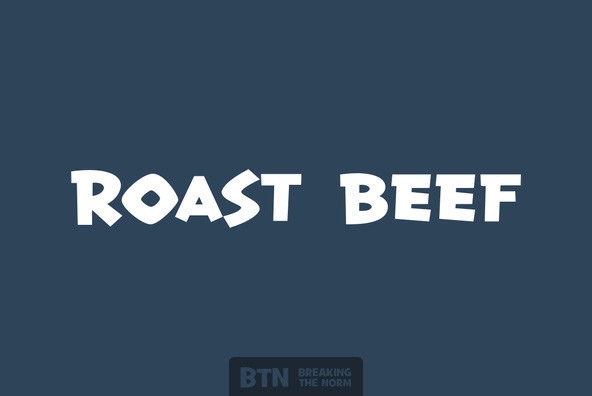
Roast Beef BTN Font
Roast Beef BTN Font is perfect for steakhouse branding, barbecue restaurant menus, butcher shop signage, meat processing company materials, hearty pub marketing, traditional deli communications, carnivorous food packaging, rustic dining establishments, and robust culinary campaigns.
What makes Roast Beef BTN Font exciting is its deliciously robust character that captures the hearty satisfaction and mouth-watering appeal of perfectly prepared meat through bold, substantial letterforms that seem to sizzle with culinary excellence. The font features thick, meaty shapes with appetizing details that evoke the rich flavors and satisfying substance of quality beef and traditional meat preparation. Its hearty aesthetic and culinary authenticity make it perfect for brands that want to communicate culinary excellence, satisfying substance, and the timeless appeal of expertly prepared meat dishes while creating memorable experiences that celebrate the art of traditional butchery and the simple pleasure of a perfectly cooked meal.
Roast Beef BTN Font family includes various hearty weights such as Regular, Bold, and Extra Bold variations, often featuring meat-inspired alternates and culinary decorative elements. The family may include butcher symbols, grill ornaments, and savory ligatures that enhance the font's carnivorous aesthetic, providing designers with comprehensive options for creating appetizing typographic compositions that celebrate the craft of meat preparation and hearty dining traditions.